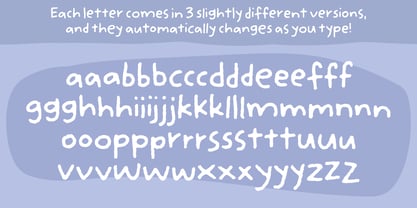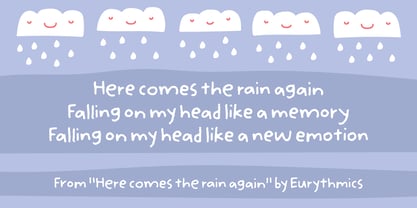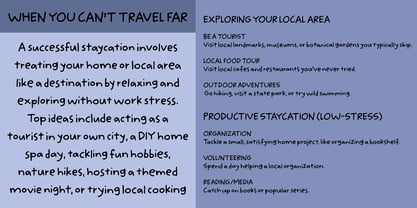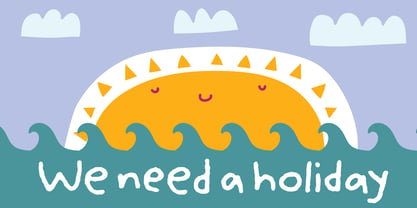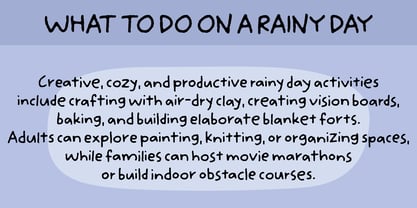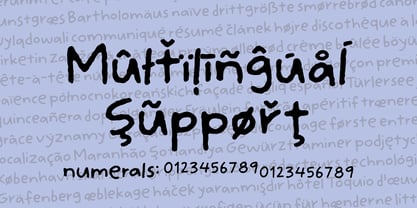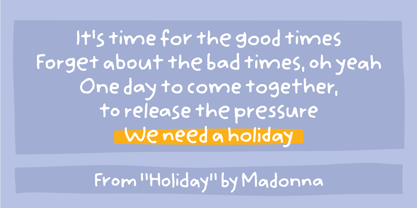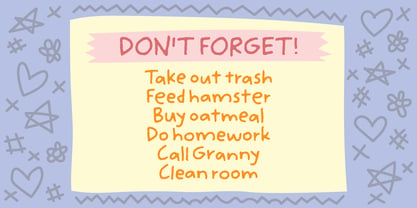
We Need A Holiday
The We Need A Holiday Font Family was designed by Jakob Fischer and published by PizzaDude.dk. We Need A Holiday contains 2 styles and family package options. More about this family
Boy, I could use a vacation right now! Not necessarily abroad and for several weeks, but just a week or two!
Well, I love my job as a kindergarten teacher, but every once in a while I need to unplug and just go to the summerhouse, take long walks with the dog, go to the gym, go for a run, go to concerts, visit museums … and maybe even do a font or two - I mean, without thinking about getting up early tomorrow!
Maybe I should do a list of good things to do when having some time off - and maybe I should use the “We need a holiday” font?! Why? Because it has a nice look, when doing massive texts or notepad-like designs. It’s somewhat blurry and crunchy lines makes you just want to read more of what the text says! :)
Well, of course “We need a holiday” has multilingual support, and I have also included 3 different versions of each lowercase letter, which makes your text more lively, vivid and organic!
We Need A Holiday